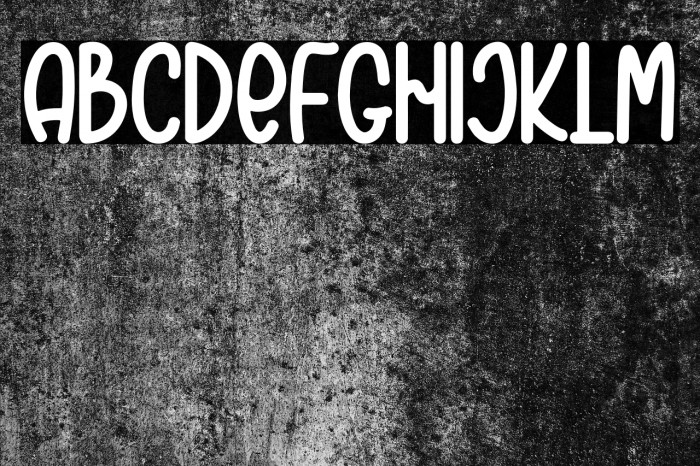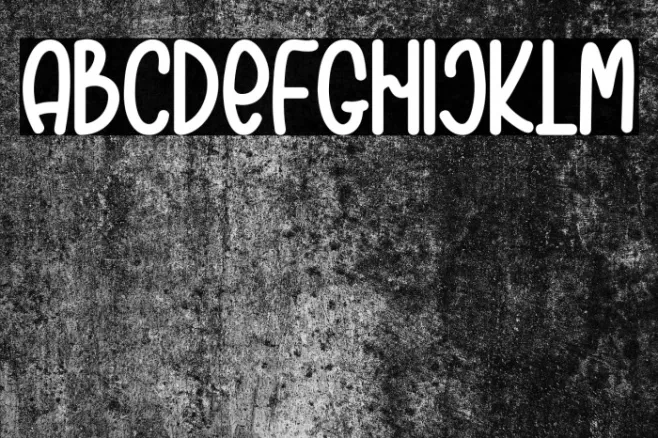
Sweet Cherry Font
This playful and whimsical font features rounded, bold characters with a handwritten style. The letters are slightly irregular, giving it a casual and friendly appearance. The uppercase and lowercase letters maintain a consistent style, with smooth curves and a slightly bouncy baseline. The numbers and special characters are designed to match the overall aesthetic, making it versatile for various uses. The font's informal nature makes it ideal for projects that require a personal touch or a fun, approachable feel.
A playful, handwritten-style font with rounded, bold characters.
- Proposed Projects: Ideal for children's books, greeting cards, playful branding, and social media graphics.
- Category: Handwritten
- Overall Style: Playful
- Use Case: Logos, Headlines, Informal Text